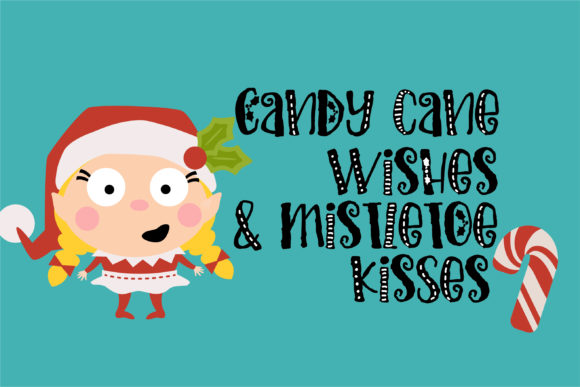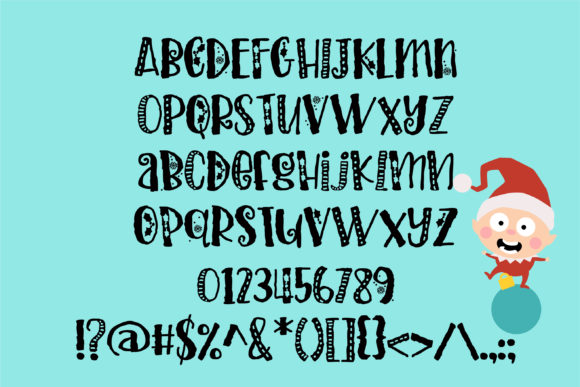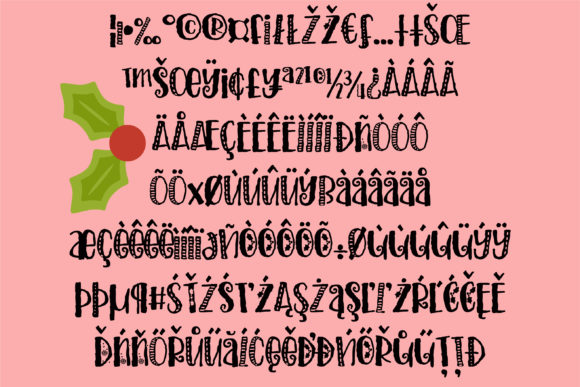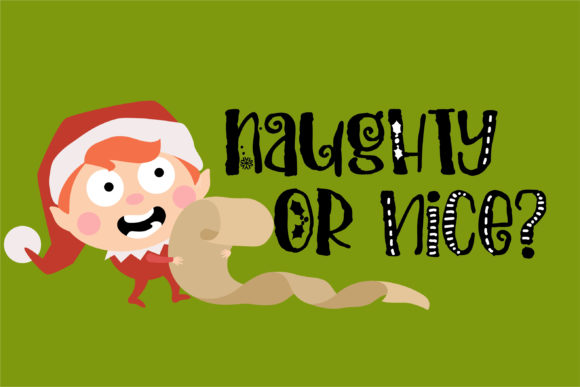
HomeScript FontsHomegirl Holiday Font Script Fonts Homegirl Holiday Font FacebookXPinterestWhatsApp Homegirl Holiday Font Poster 2 Homegirl Holiday Font Poster 3 Homegirl Holiday Font Poster 4 Homegirl Holiday Font Poster 5 About Homegirl Holiday Font This textured font is filled with holiday illustrations. DOWNLOAD NOW People also explored Rebellious Af Font Today Holiday Font Morem Font Fresh Love Font Ayahi Script Befimonk Font Lemon Yellow Sun Rainbow Summer Font Rachele 326 0 TagsHomegirl Holiday Font Previous articleBelly Button FontNext articleEuphoria Font LEAVE A REPLY Cancel reply Comment: Please enter your comment! Name:* Please enter your name here Email:* You have entered an incorrect email address! Please enter your email address here Website: Save my name, email, and website in this browser for the next time I comment. Personal Use Free Ennobled Pet Personal Use Free Read more about this font Pumpkins Candles Personal Use Free Read more about this font Expaing Personal Use Free Read more about this font Girl Personal Use Free Read more about this font BLOG How to Cut Any Font on Cricut: Convert a Font to SVG (Free) Turn any font into a clean SVG so it cuts crisp on Cricut - a quick 3-step workflow using a free font-to-SVG tool. Where to Buy American Fonts Online in 2024 Transform Your Website: Elevate Your Typography with 7 Best Web Font Generators Modern Sans-Serif Fonts That Brands Love in 2025